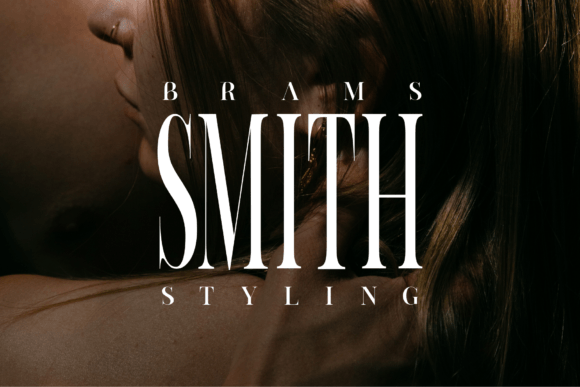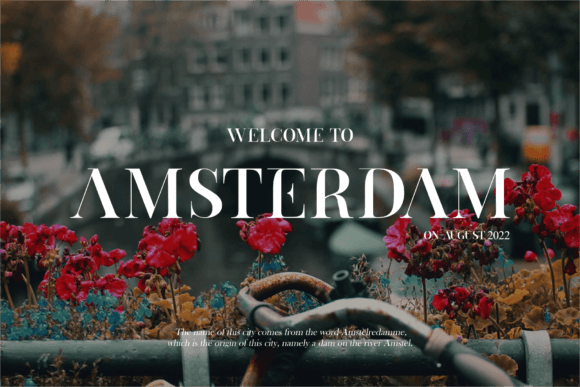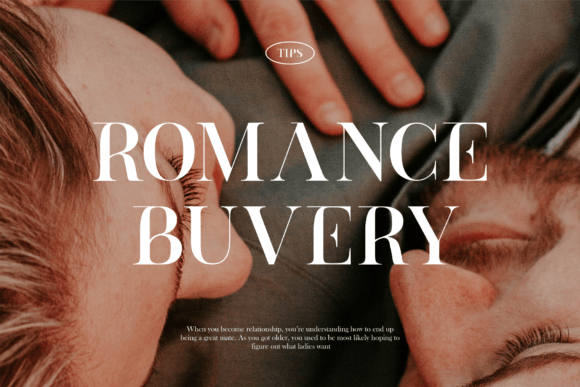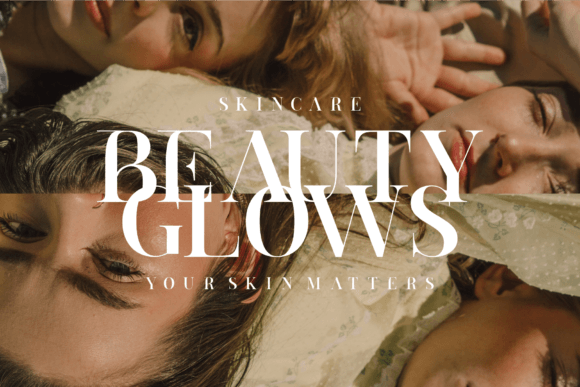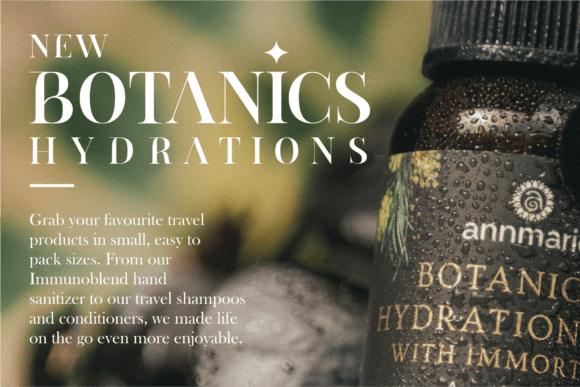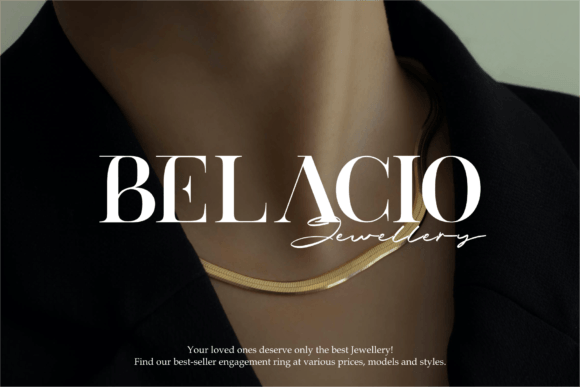
Introducing Beril Font: Elevate Your Designs with Modern Elegance
Are you a designer or crafter looking for a font that exudes modern sophistication and versatility? Look no further than Beril Font, a stunning display serif font perfect for a wide range of projects. From fashion and magazines to logos, branding, and wedding invitations, Beril Font is the ideal choice for those seeking a stylish and elegant typographic solution.
What Makes Beril Font Stand Out?
Beril Font boasts a unique blend of modernity and classic sophistication, making it an exceptional addition to any design project. Its clean lines, precise curves, and expertly crafted serifs create a visually appealing aesthetic that’s both refined and attention-grabbing. Whether you’re working on a fashion magazine, a luxury brand’s logo, or a wedding invitation, Beril Font is sure to elevate your design to new heights.
Endless Possibilities: Where to Use Beril Font
One of the most significant advantages of Beril Font is its incredible versatility. This modern display serif font can be used in a multitude of projects, including:
- Fashion magazines and editorials
- Logos and branding materials for high-end businesses
- Photography and art portfolios
- Invitations and wedding invitations
- Quotes and inspirational typography
- Blog headers and social media graphics
- Posters and advertisements
- Postcards and greeting cards
- Books and e-books
- Websites and landing pages
Key Features of Beril Font
Beril Font comes with a range of features that make it an attractive choice for designers and crafters:
- Modern display serif design with clean lines and precise curves
- Expertly crafted serifs for added elegance and sophistication
- Highly legible and readable, even at small sizes
- Perfect for both digital and print applications
- Easy to use and integrate into your design workflow
Why Choose Beril Font?
In today’s competitive design landscape, it’s essential to choose fonts that not only look great but also help you stand out from the crowd. Beril Font offers a unique combination of style, elegance, and versatility, making it an excellent choice for designers and crafters seeking to:
- Create stunning visual effects and typography
- Enhance their brand’s image and reputation
- Develop a consistent visual identity across multiple platforms
- Save time and effort with a font that’s easy to use and customize
Tips for Using Beril Font Effectively
To get the most out of Beril Font, consider the following tips:
- Use Beril Font as a headline or title font to grab attention and create visual interest
- Pair Beril Font with a clean sans-serif font for body text to create a harmonious contrast
- Experiment with different font sizes, colors, and textures to add depth and visual hierarchy
- Take advantage of Beril Font’s versatility by using it across multiple design projects and platforms
Beril Font is an exceptional modern display serif font that offers a perfect blend of style, elegance, and versatility. Whether you’re a designer, crafter, or business owner, Beril Font is an excellent choice for anyone seeking to elevate their designs and create a lasting impression. With its clean lines, precise curves, and expertly crafted serifs, Beril Font is sure to become a staple in your typographic arsenal.